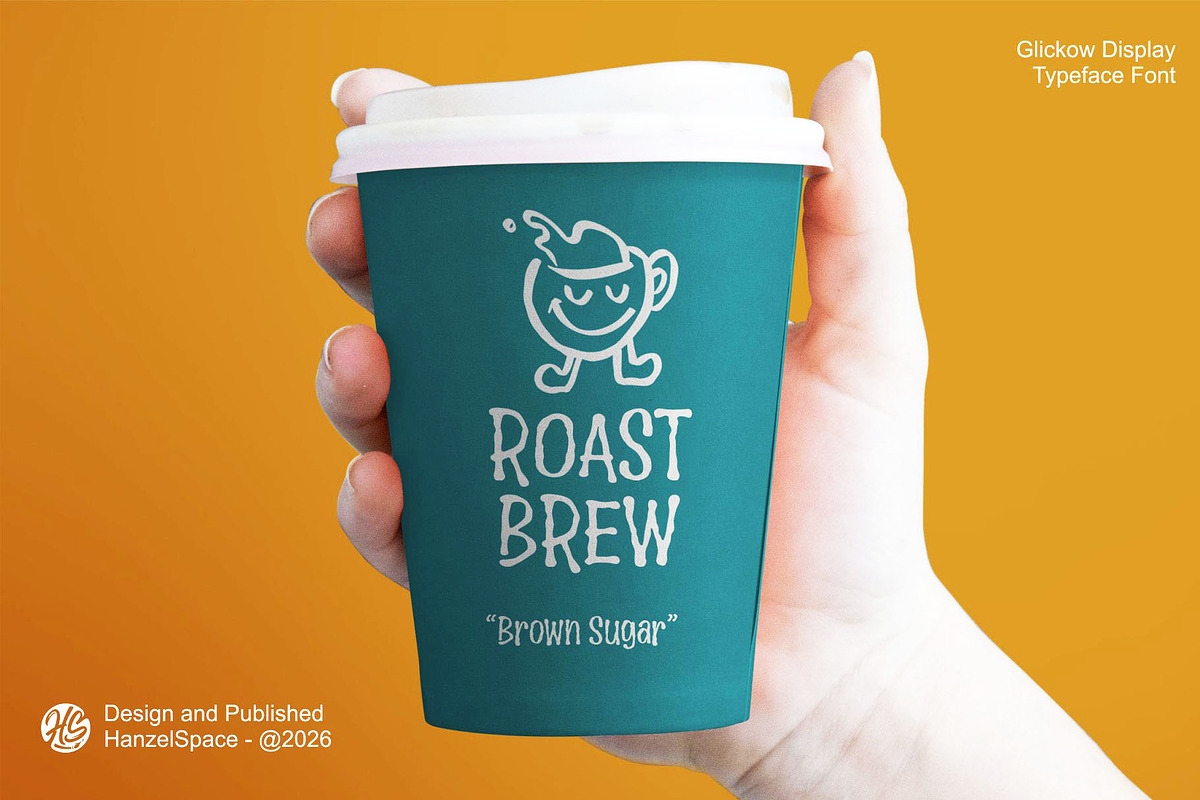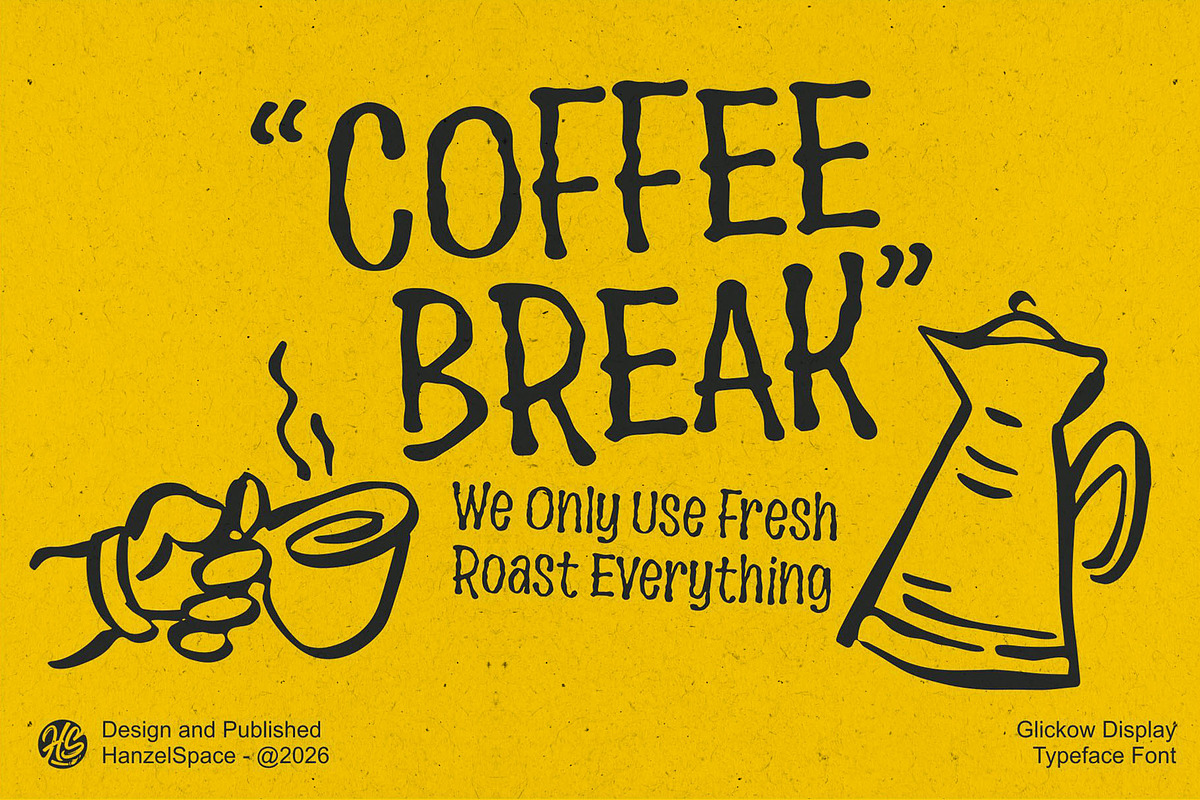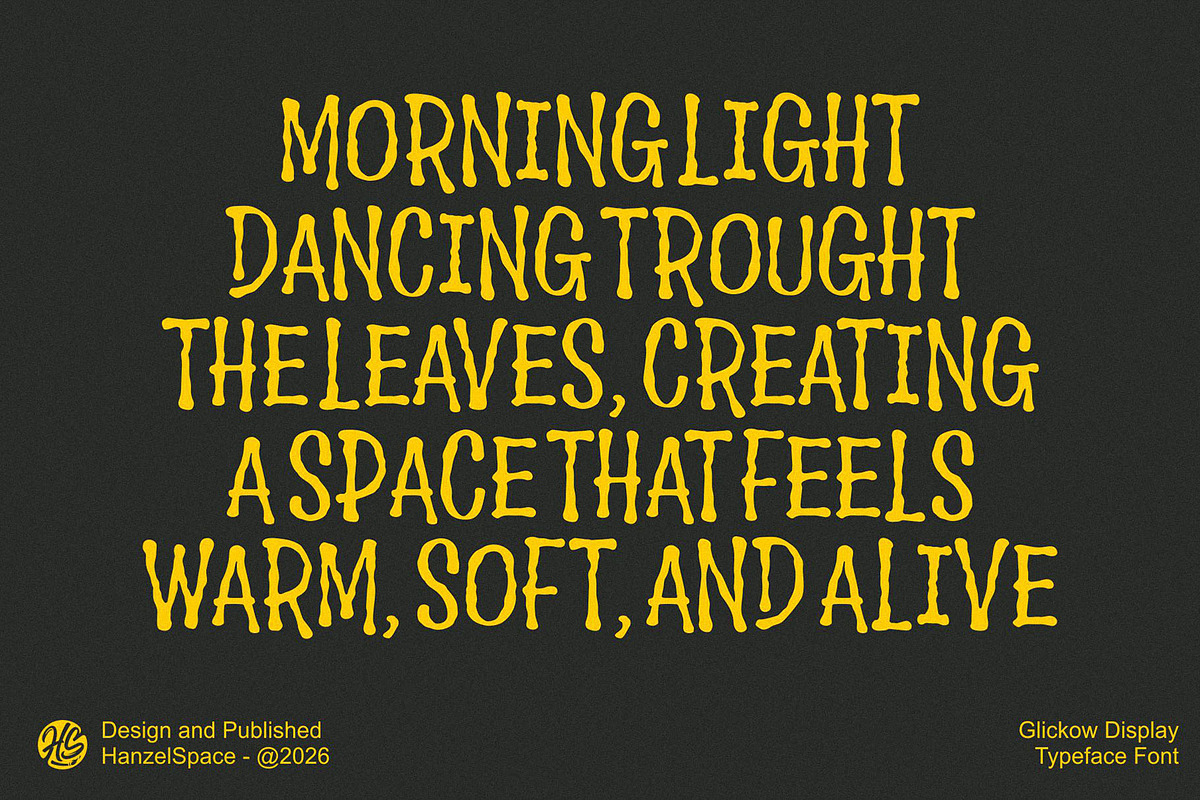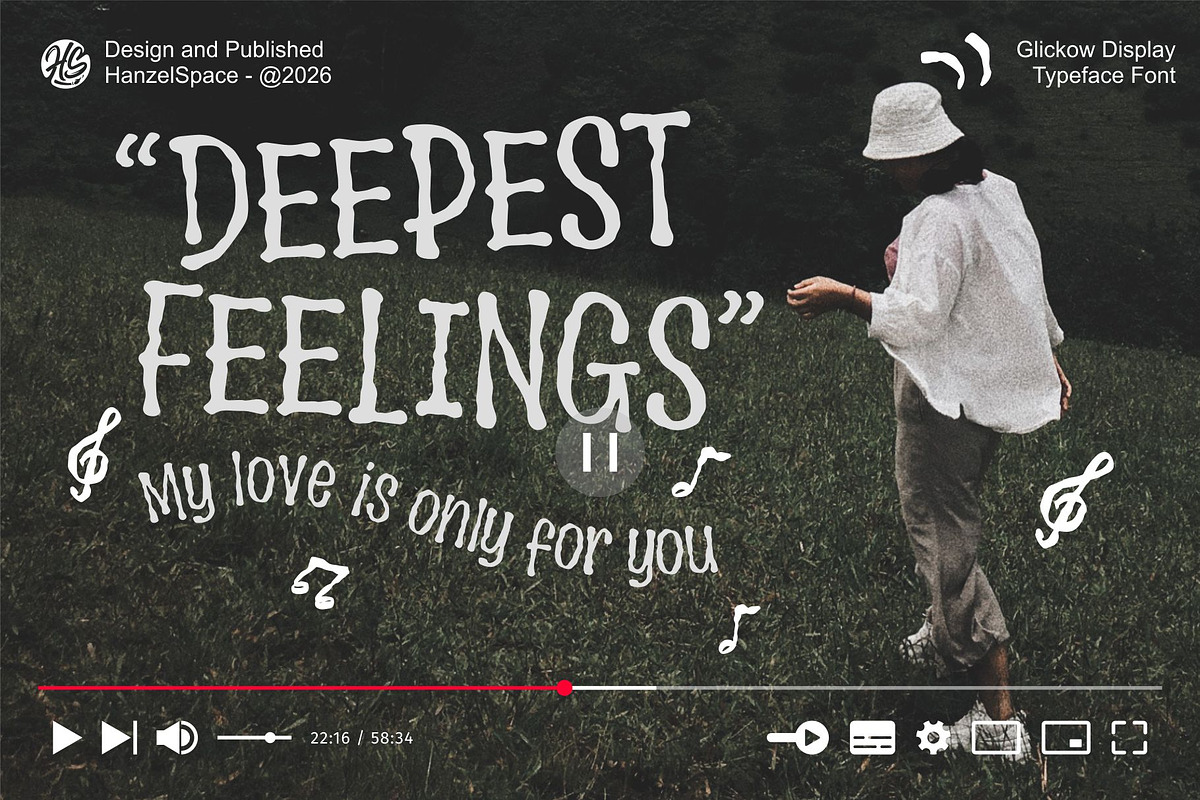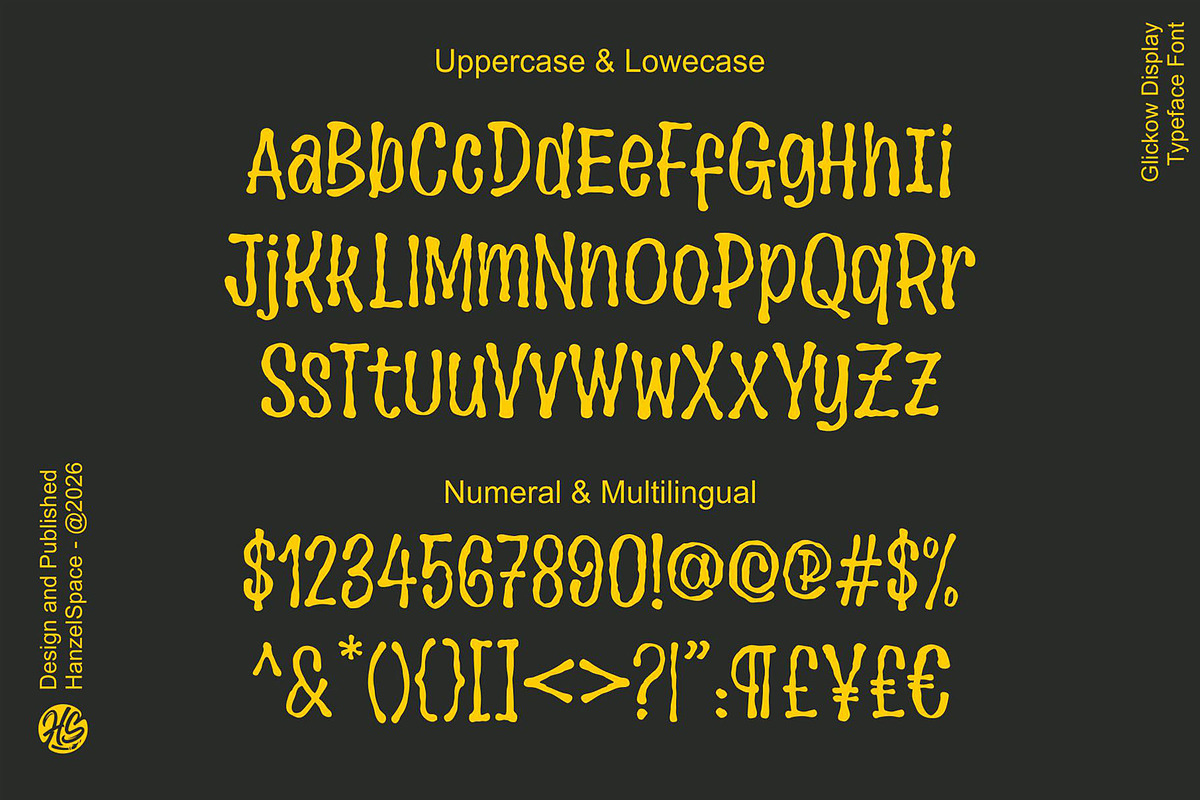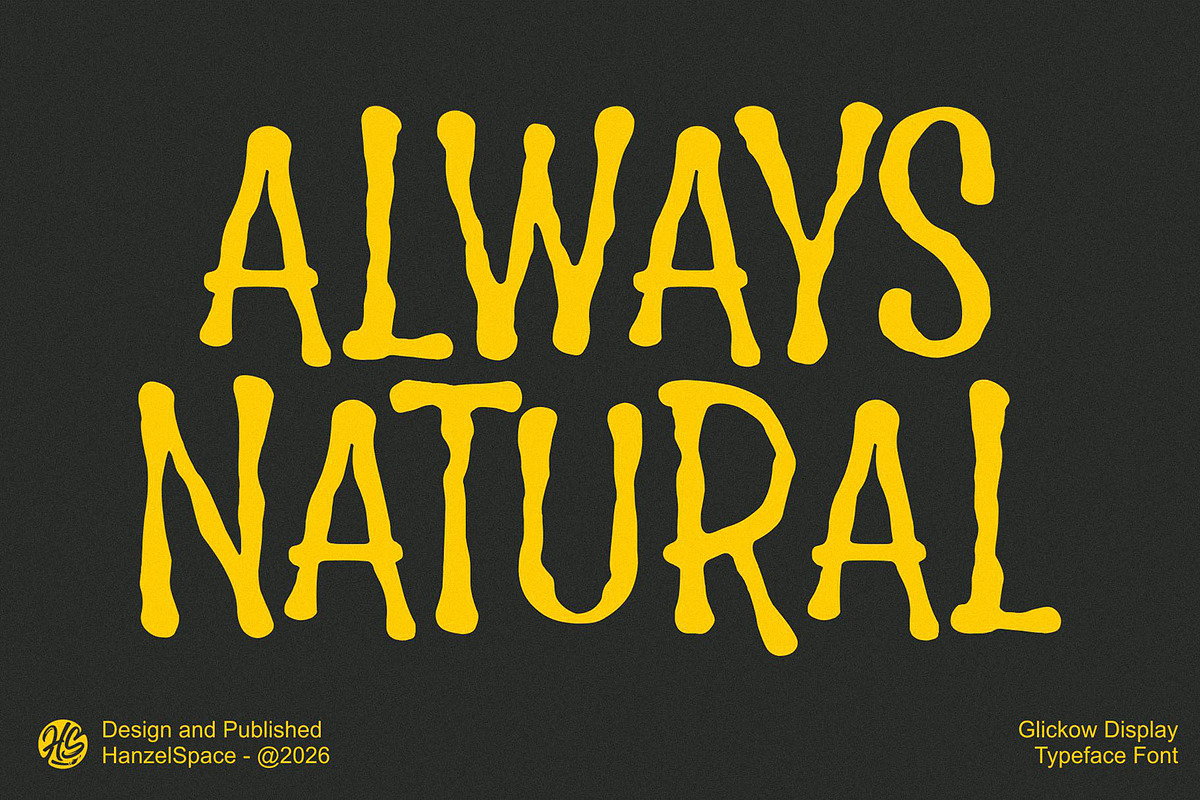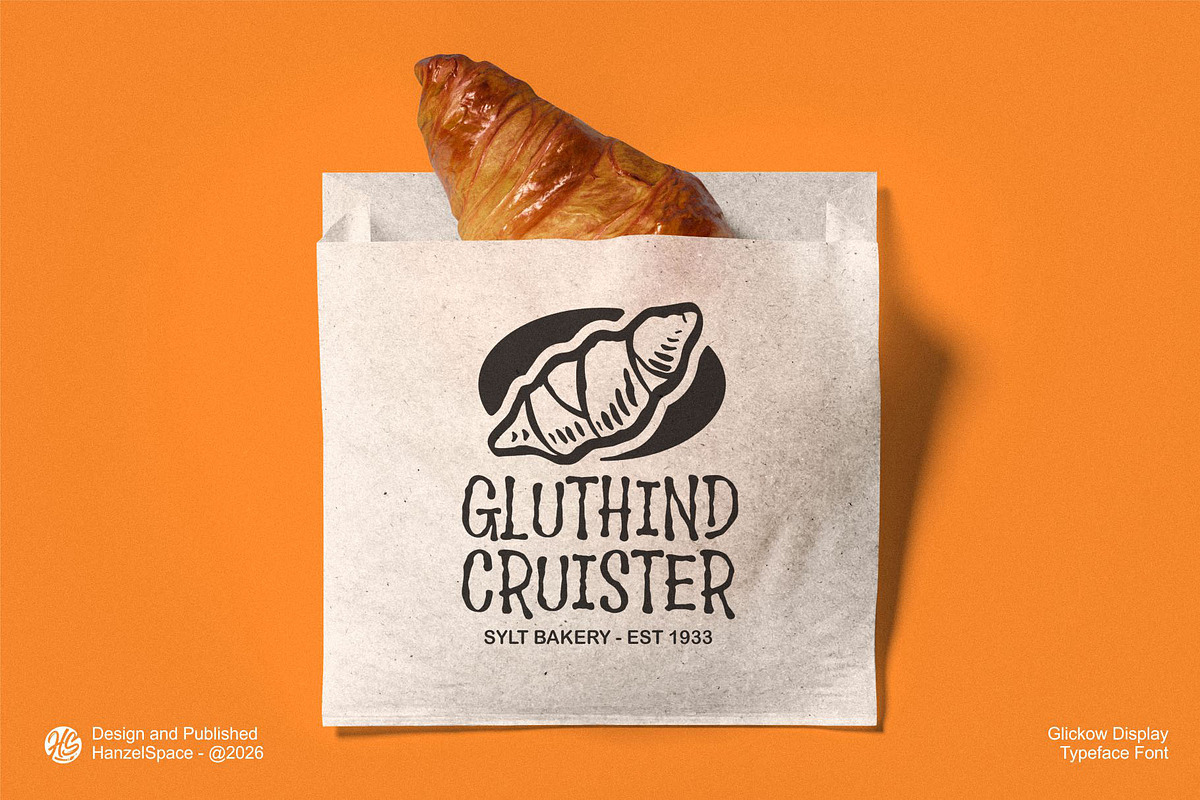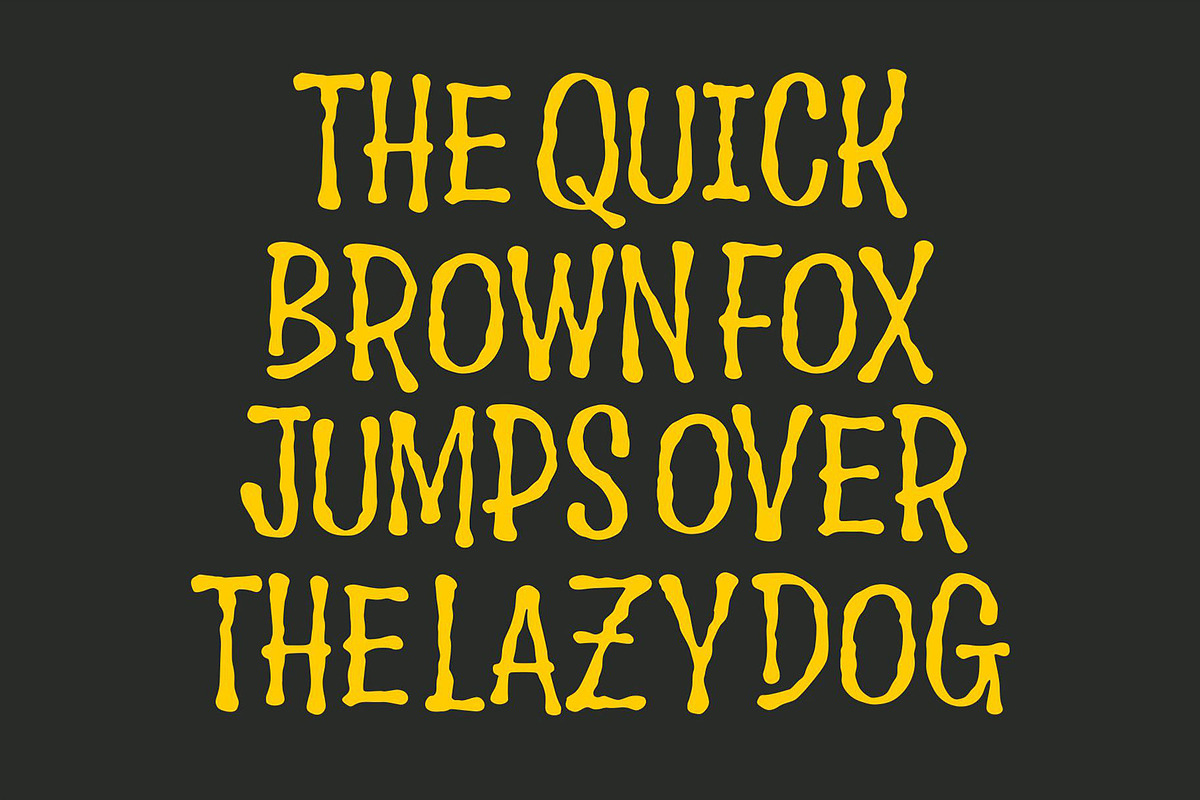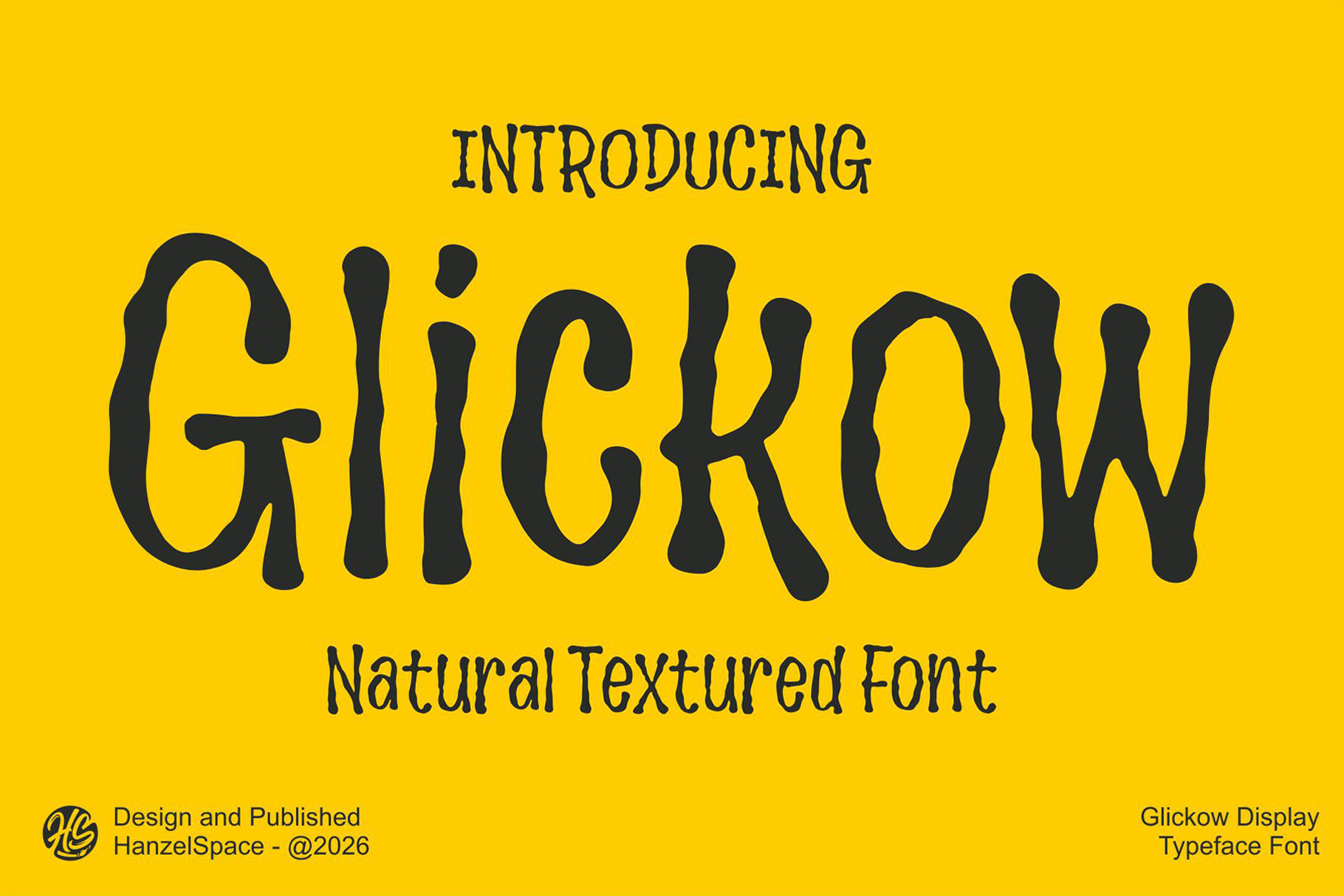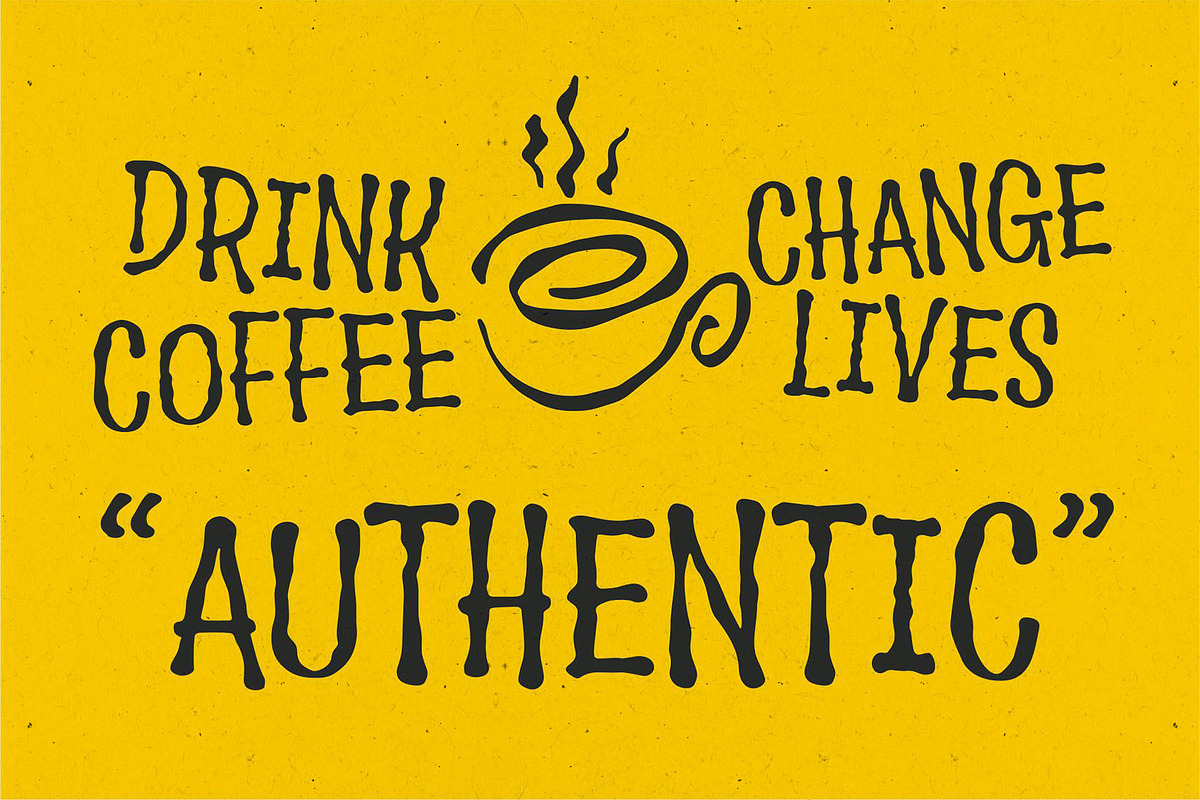
Glickow - Display Typeface Font
The "Glickow" font features a natural, wavy style, yet each letter has a unique character, created with a handwritten touch. This font is perfect for your business design needs, including branding, logos, product packaging, quotes, posters, and more.